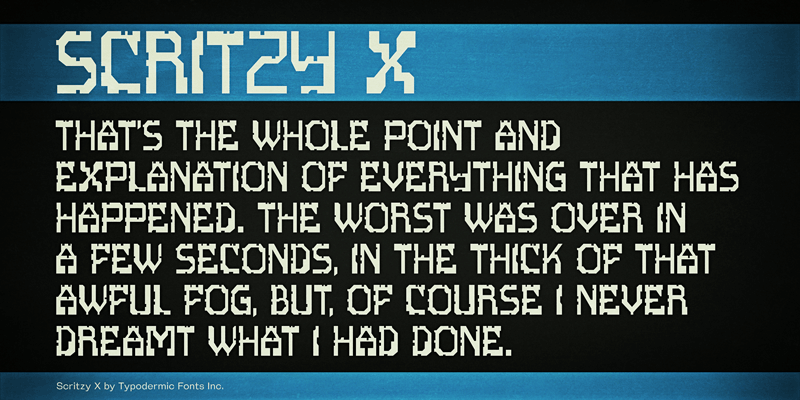
Font name: | Scritzy X |
Scritzy X is an omnium-gatherum of robot parts, buttwelded into alphabetic form. This font includes a license that allows free commercial use: sometimes referred to as a desktop license. This allows you to install the font on a computer and use it to create posters, web graphics, game graphics, t-shirts, videos, signs, logos and more. Read the license agreement for details. If you'd like to embed this font in an app, ebook, on the web or anything that's not covered by the desktop license agreement, visit the link below. You'll find distributors who offer different types of licenses or you can contact me for help. http://typodermicfonts.com/scritzy-x/ |